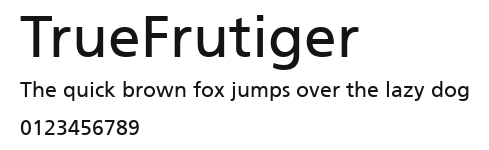
About TrueFrutiger.ttf
TrueFrutiger.ttf is a modern, elegant sans-serif font designed for ultimate readability and visual harmony. Perfect for branding, headlines, web design, and print materials.